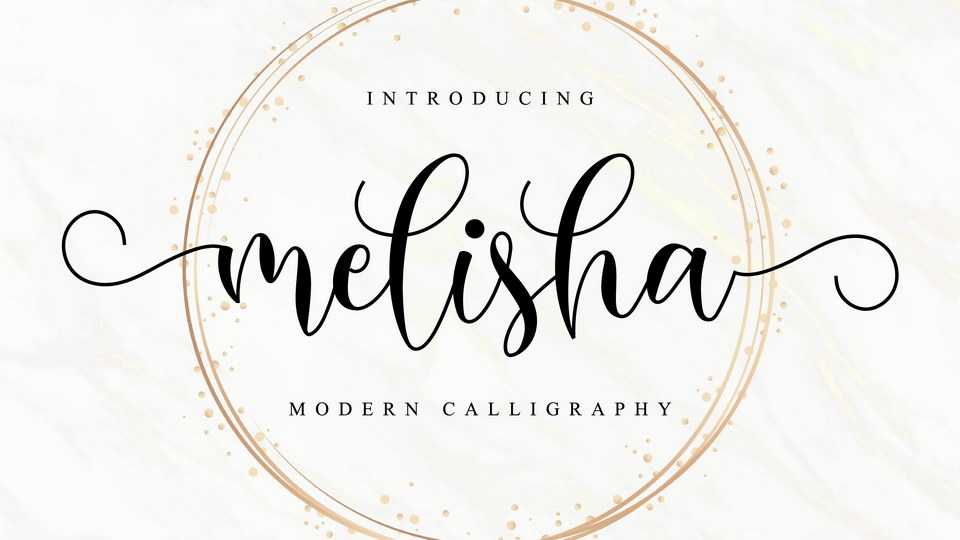
Download Melisha font, a beautiful modern calligraphy typeface. Melisha has a classy, elegant look which can be used for logos, branding, invitations, stationary, wedding designs, social media posts, and every other design which needs a handwritten touch.
Designer: Nissa Studio